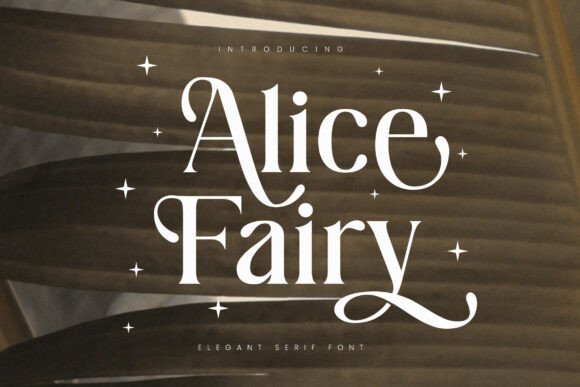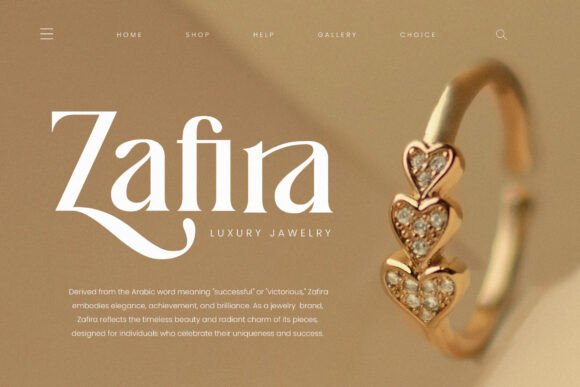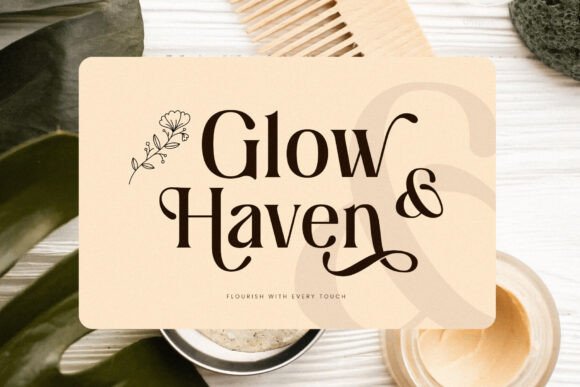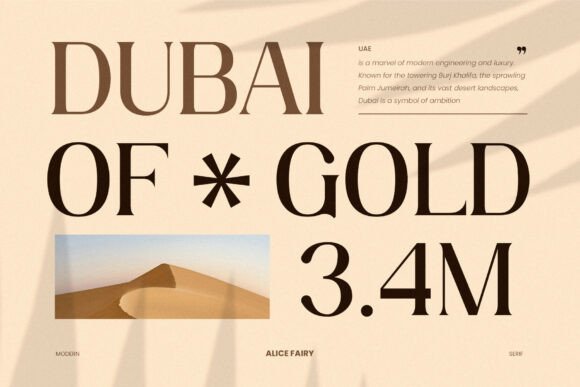
Alice Fairy Font: Elegant Serif for Wedding & Logo Design
About the Alice Fairy Font
Let us introduce you to Alice Fairy Font, where timeless design meets modern craftsmanship. Alice Fairy is a classy and versatile font that’s perfect for adding a touch of elegance to your designs. With its beautiful alternates and decorative tails, it works great for logos, websites, wedding invites, and more. Whether you’re going for a romantic vibe or something professional, this font has you covered. Plus, it’s easy to use and includes multilingual support, making it a great fit for all kinds of projects.
Alice Fairy Font’s elegant, slightly whimsical style shines in headlines, short text blocks, and branding applications where a touch of sophistication is desired. It’s ideal for logos, invitations, and short marketing materials, particularly for brands focused on beauty, fashion, or the arts. Avoid using it for large bodies of text or UI elements; its decorative nature can hinder readability in extended use.
Pairing Alice Fairy with a clean sans-serif like Lato or Open Sans for body copy provides excellent contrast and visual balance. For a more playful feel, consider pairing it with a rounded geometric sans-serif. A classic serif like Garamond could also create a sophisticated, timeless combination, depending on the desired mood.
The font projects a refined, romantic personality, blending classic grace with a subtle playfulness. This makes it suitable for brands aiming for a sophisticated yet approachable image, avoiding overly formal or austere aesthetics.
Alice Fairy Font Usage Examples
Alice Fairy Font Example